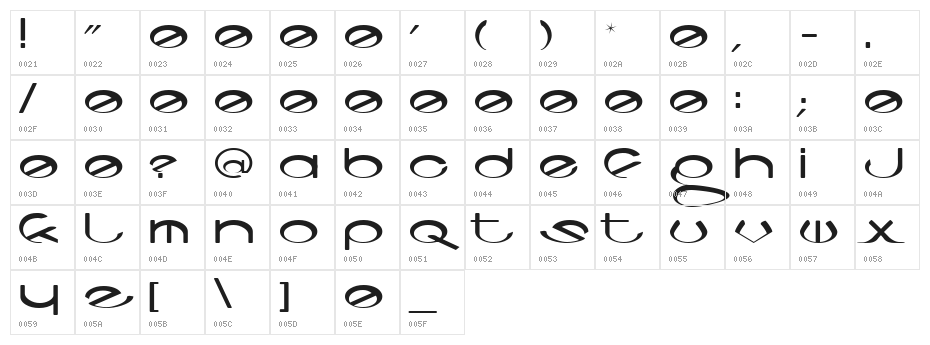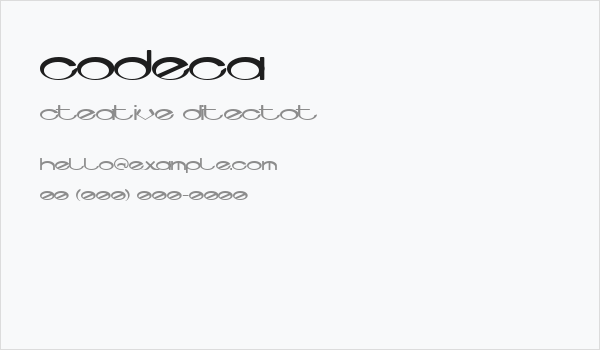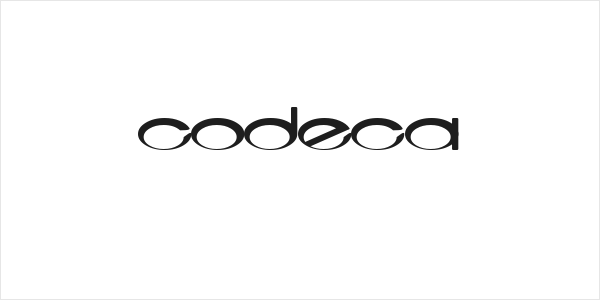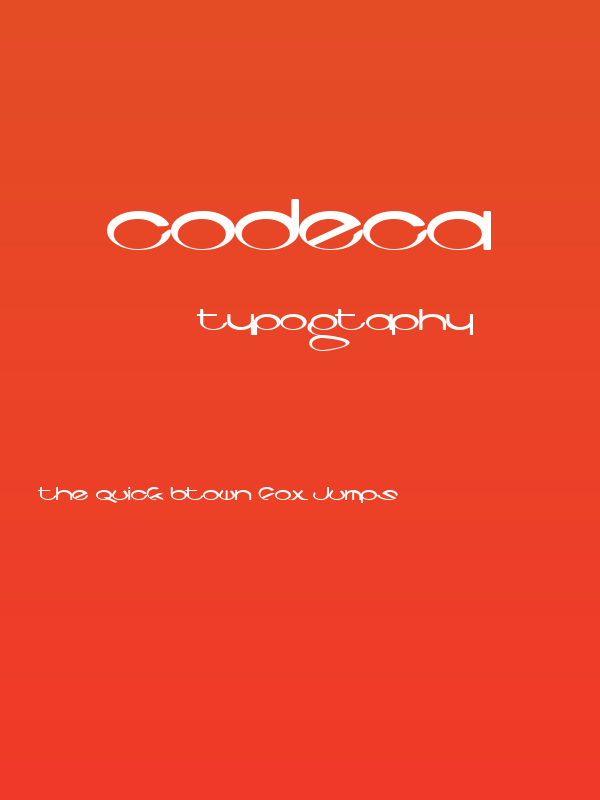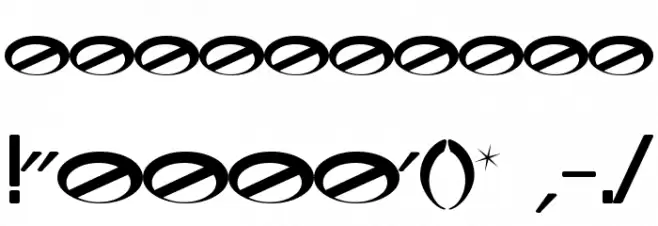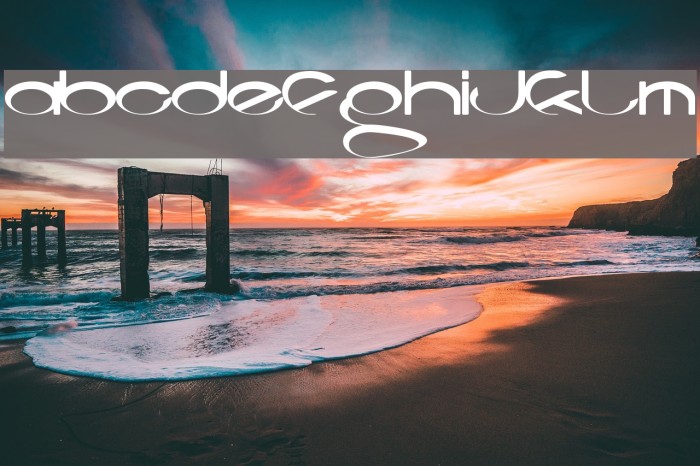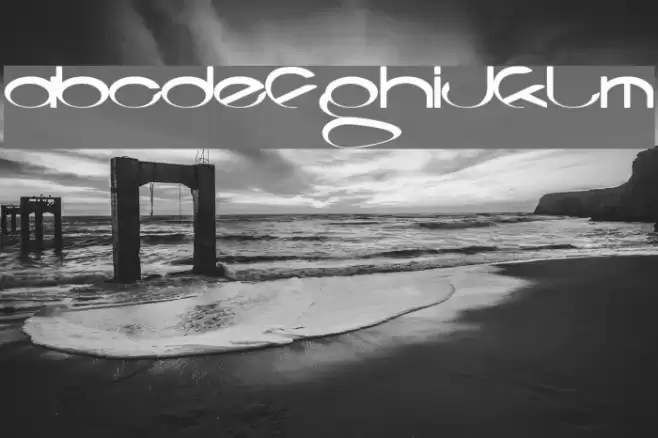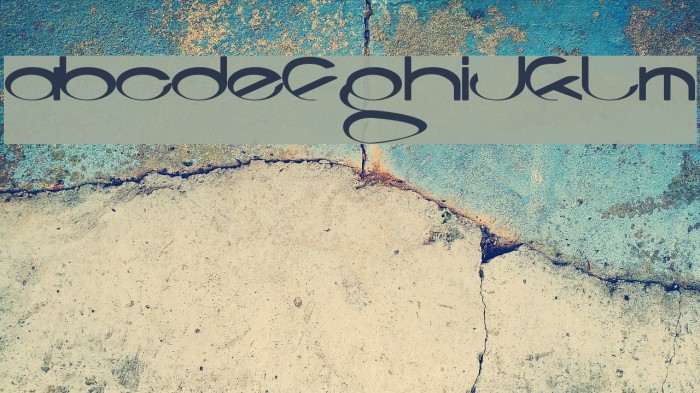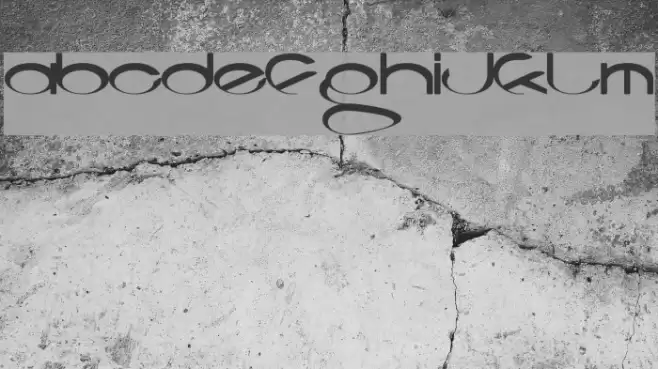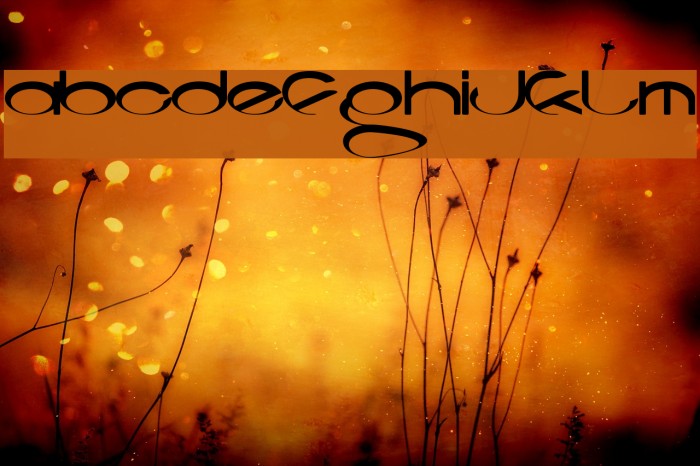
Codeca Font
Codeca Description
This font features a unique and modern design with a futuristic flair. The characters are crafted with a combination of smooth curves and sharp angles, creating a dynamic and eye-catching appearance. The uppercase and lowercase letters maintain a consistent style, with some letters exhibiting a playful twist in their structure. The numbers and special characters follow the same design principles, ensuring a cohesive look across all glyphs. This font's distinctive style makes it suitable for projects that require a bold and innovative visual impact.
| Use Case | Logos, Headlines, Posters |
| Proposed Projects | Ideal for tech-related branding, sci-fi themed designs, and innovative product packaging. |